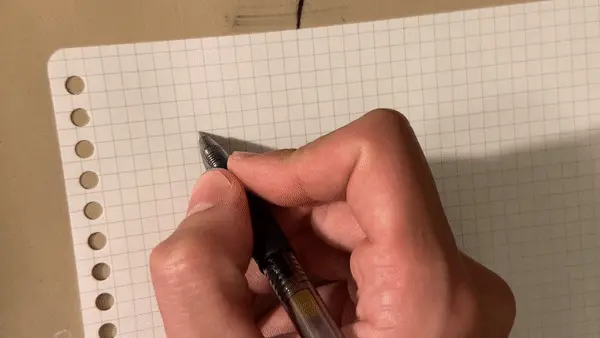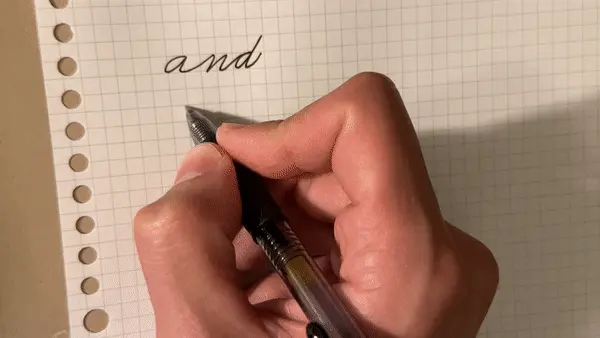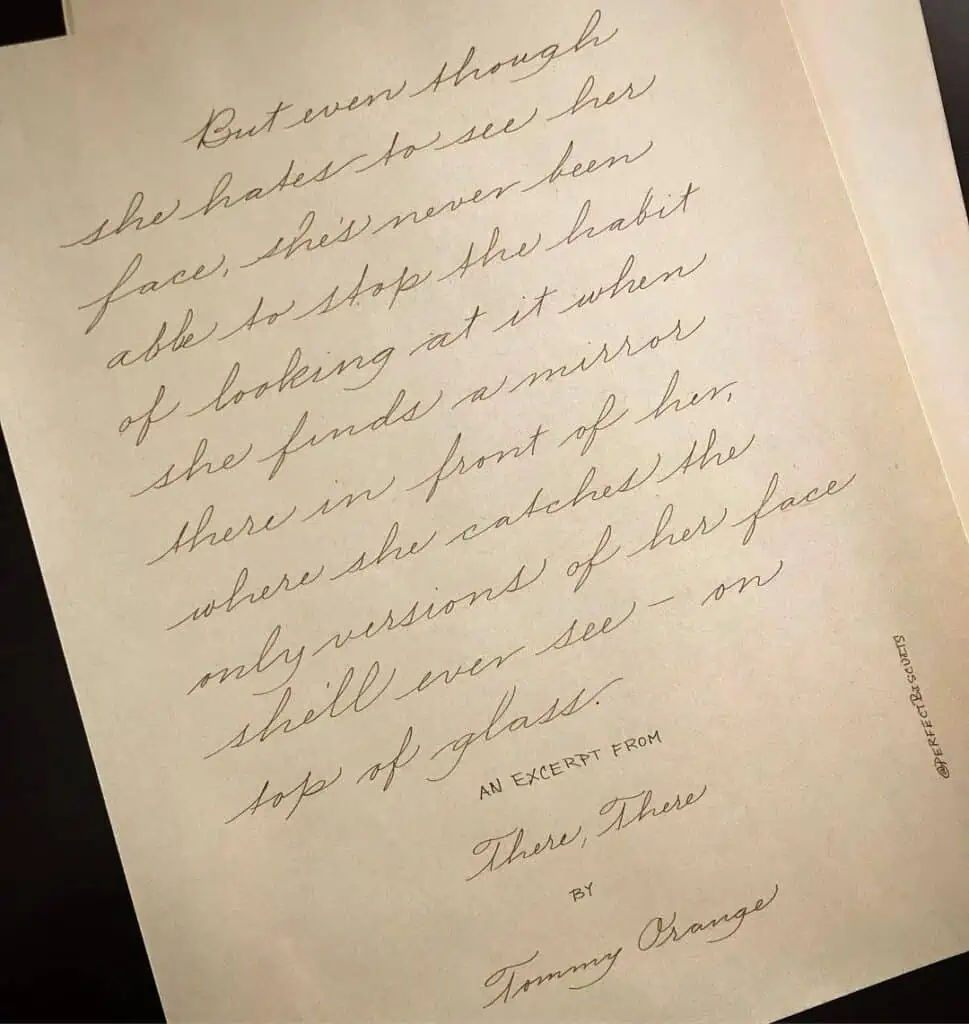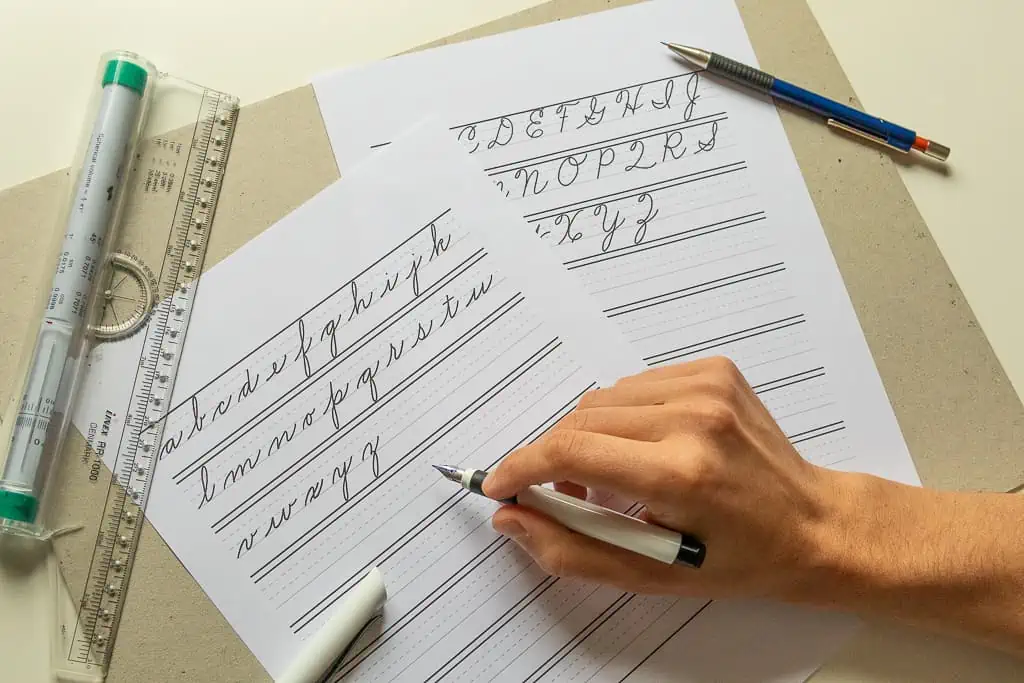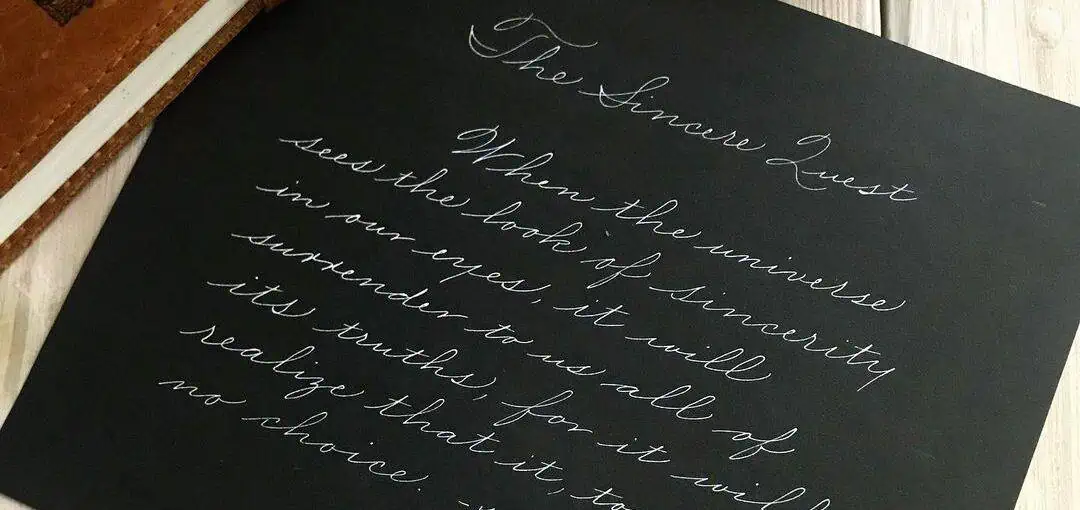
When someone asks, “How can I improve my handwriting?” they usually look for a few simple things they can do to make their writing more legible or presentable.
The problem is that handwriting is a habit deeply ingrained in both the mind and the muscles. If you’re an adult who has been writing the same way for years, even a small change can be surprisingly difficult to make.
I’ve always taken a different approach to helping people improve their handwriting. Instead of relying on quick tips and tricks, I believe you need to understand how handwriting works, practice deliberately, and learn how to identify and correct your own mistakes.
In this guide, I’ll walk you through the fundamentals of handwriting, practical handwriting exercises you can use to improve, and free handwriting practice worksheets you can use to put everything into practice.
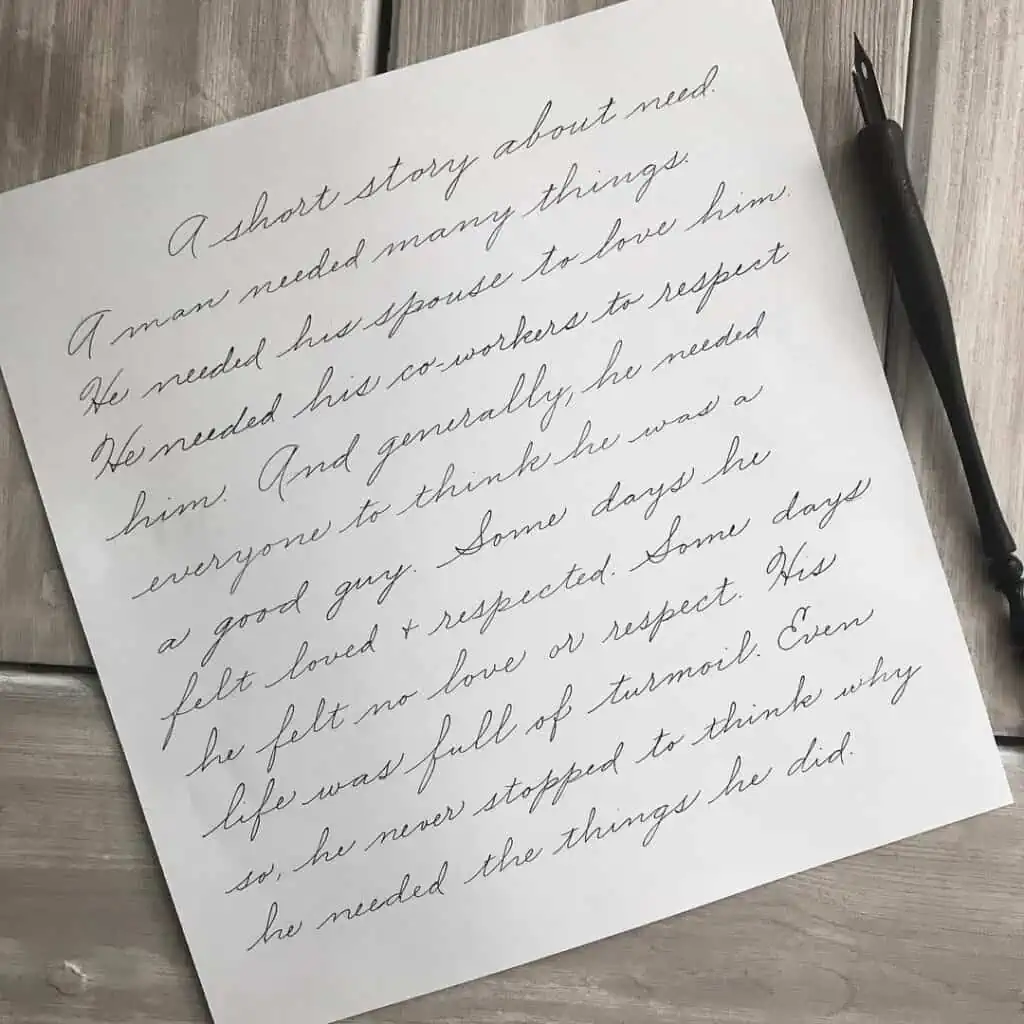
Understanding the Fundamentals of Handwriting
If you don’t understand how handwriting works fundamentally, you will always feel lost when trying to improve your handwriting, even if you are following the advice of a handwriting expert.
When you understand how handwriting works, everything becomes clear. You will know things like:
- Why the letters have different heights
- Why the letters are spaced the way they are
- Why the letters have different forms yet work together to create a cohesive script
- The way to position your body, hold the pen, and position the paper for optimal writing
- Why someone’s handwriting is more legible or visually pleasing than another’s
I hope you can see that if you understand all the above, improving your handwriting will be a walk in the park.
So your first task, if you want to improve your handwriting, is to learn the fundamentals of handwriting.
The best way to do this is to study a proven handwriting system.
Any time-tested system will do. I recommend American Cursive because it is a beautiful, legible script and provides an excellent foundation for handwriting practice.
Regardless of what script you choose, by studying one, you will learn how handwriting works, and you will be able to apply what you’ve learned to any other script, including your own chicken scratch.
By studying a script like American Cursive, you will learn these important concepts and more:
- Body position, pen grip, and paper position
- The grid, or how the lines printed on the page (and the imaginary ones that aren’t) work with the letters
- How to write across the page
- How a script builds on fundamental strokes and repeats those strokes throughout the alphabet
What Do You Want Your Handwriting to Look Like?
When you study American Cursive or any other script, you will learn to write in that style, but that doesn’t mean your personal handwriting needs to look exactly like the script you are studying.
That said, traditional scripts like American Cursive were successful for a reason.
They evolved out of the culture in which they were created and have stood the test of time as legible, visually pleasing scripts.
You cannot go wrong by trying to emulate a traditional script, and no matter how hard you try, your script will always have personal quirks that are unique to you.
The great thing about studying a traditional script is that you have a very clear and defined vision to work towards.
Every traditional script has an exemplar, which is the ideal letterforms that comprise the script. With an exemplar in hand, you know exactly what your goal is, and you can always compare your handwriting to the exemplar to see where you are falling short.
This is especially important when you’re practicing handwriting as an adult. Rather than simply writing the same letters over and over, you have something specific to compare your writing against. That makes your practice more deliberate and helps you identify exactly what needs improvement.
With an exemplar in hand, you know exactly what your goal is, and you can always compare your handwriting to the exemplar to see where you are falling short.
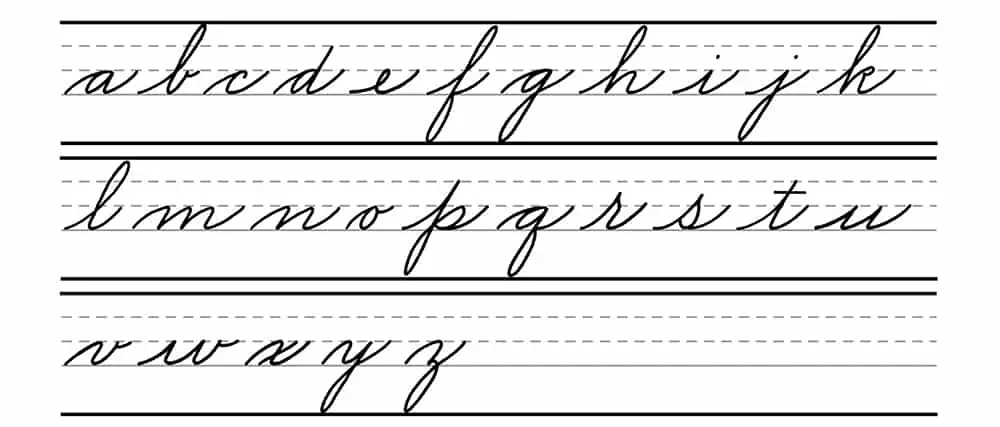
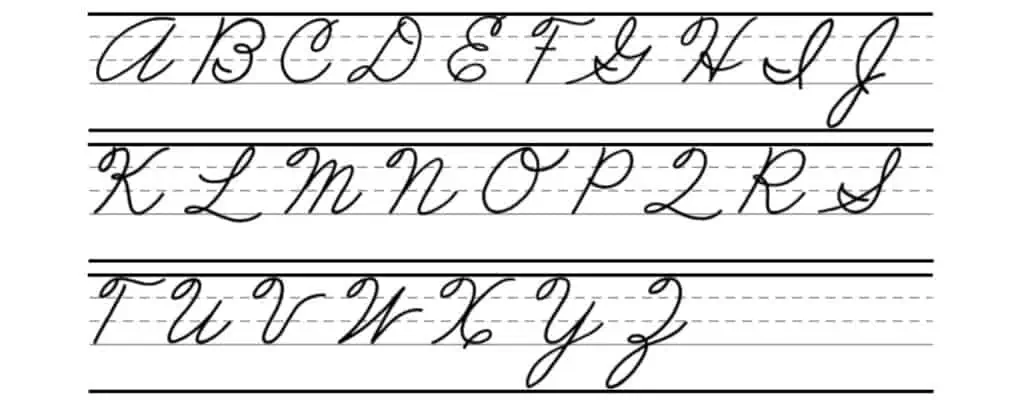
If you want your handwriting to have its own unique flavor, I suggest you at least find a traditional script to use as a base.
That way, you can take the exemplar from a traditional script and modify it to make it your own, which is much easier than creating an exemplar from scratch.
Of course, you can create one from scratch too, but it takes a lot of time to do it right, and the result won’t be as good unless you understand handwriting at a high level.